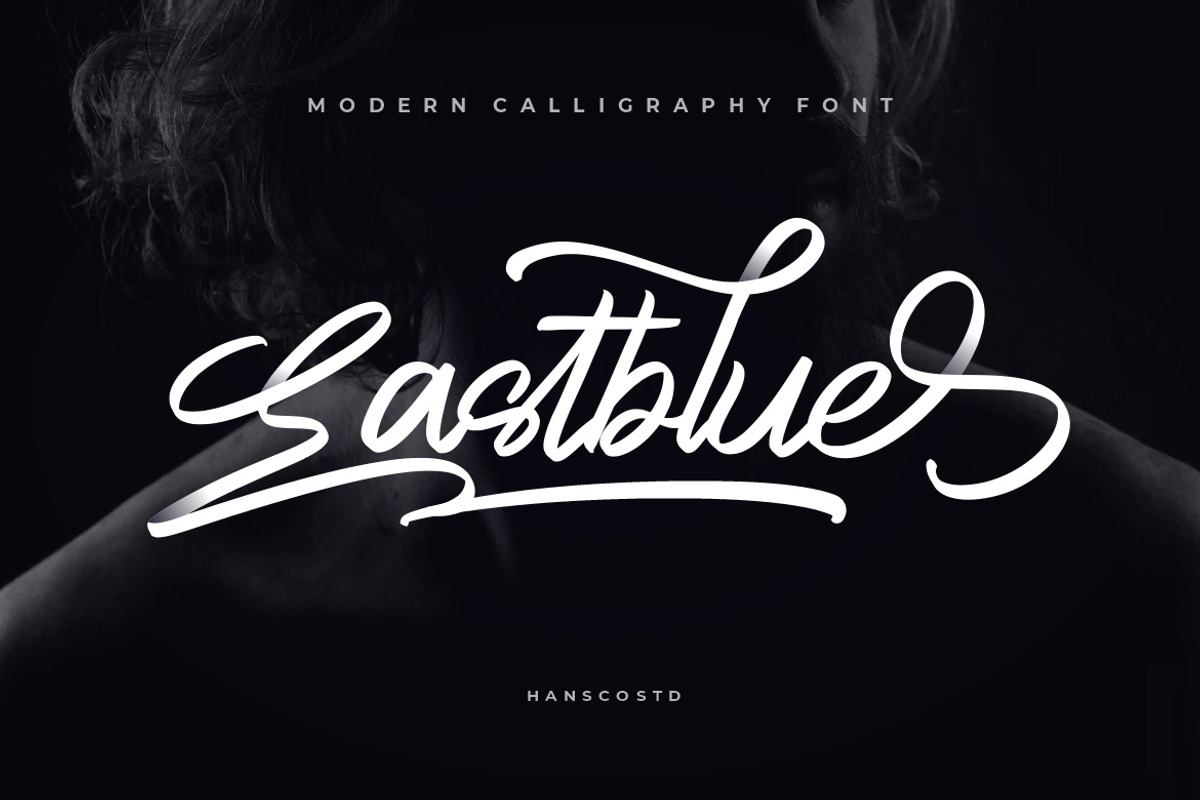
Eastblue Calligraphy Font Free Download
Eastblue Calligraphy Font Free Download is an elegant and flowing script typeface designed to bring sophistication and beauty to your designs. With its delicate swashes, high contrast strokes, and graceful curves, Eastblue is perfect for wedding invitations, branding, logos, greeting cards, and luxury packaging.
This font captures the essence of modern calligraphy, offering a refined and timeless feel. Its fluid and handwritten style adds a personal touch to any project, making it ideal for designs that need to evoke romance, elegance, and charm.